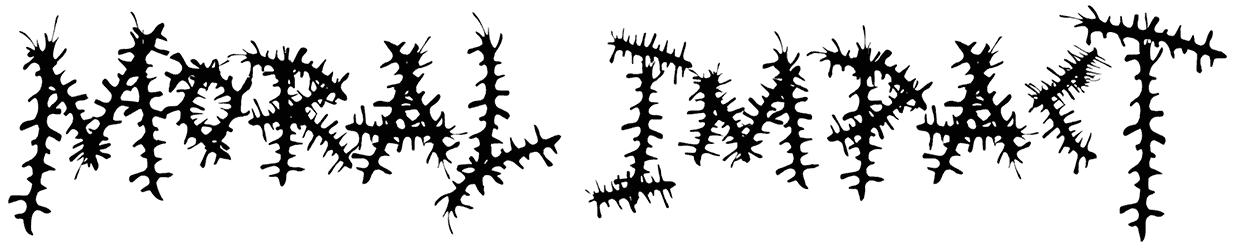
Moral Impact Font
Moral Impact is an awesome horror font that grabs the viewer’s attention at first glance. This scary font has an exciting design that seems memorable to the viewers.
You may use the Moral Impact in several situations, such as posters, prints on T-shirts, and logos, but it does not support lowercase letters. Moreover, this font’s letters have sharp thorns, creating a dark theme. So give it a try to impact your audience.